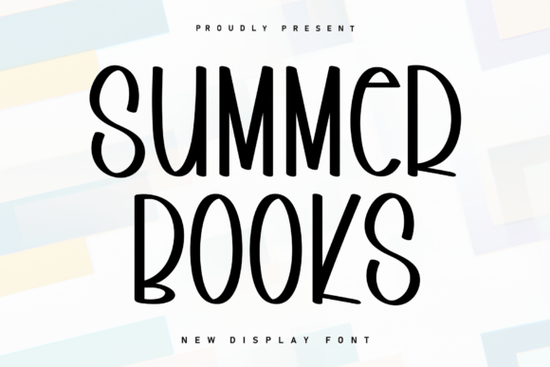
Summer Books Font is a versatile and charming handwritten typeface that brings a sense of warmth and authenticity to any design project. Its smooth, flowing strokes and organic lines make it ideal for adding a personal touch to branding, invitations, social media graphics, and more. Whether you're a designer, crafter, or small business owner, this font can help elevate your creative work with its unique style.
What Makes Summer Books Font Stand Out?
The Summer Books Font is designed with a relaxed, handwritten feel that feels natural and easy to read. Its curves and lines give it a soft, inviting appearance, which makes it great for projects that aim to convey a sense of comfort and familiarity. This font works well in both digital and print formats, offering flexibility for a wide range of applications.
One of the key strengths of this font is its readability. Even though it has a casual, artistic look, it doesn’t sacrifice clarity. This means you can use it for headings, logos, or even body text without worrying about legibility issues. It’s especially useful for designers who want to add a personal touch without compromising on professionalism.
How Can You Use Summer Books Font?
There are many ways to incorporate the Summer Books Font into your design workflow. For example, if you're creating social media content, this font can help make your posts stand out with its unique personality. It's also a great choice for print-on-demand products, such as t-shirts, mugs, and stationery, where a handcrafted look can add value and appeal.
Small businesses and creative hobbyists often use this font for branding materials, like business cards, banners, and signage. Its warm and welcoming style can help create a stronger connection with your audience. If you're working on a project that requires a friendly, approachable tone, this font can be an excellent choice.
Final Thoughts
The Summer Books Font is a great addition to any designer’s toolkit, especially for those who appreciate a handmade, authentic look. Its versatility and ease of use make it suitable for a variety of projects, from simple social media posts to more complex branding efforts. Whether you're a professional designer or a creative hobbyist, this font can help bring your ideas to life with its unique charm.